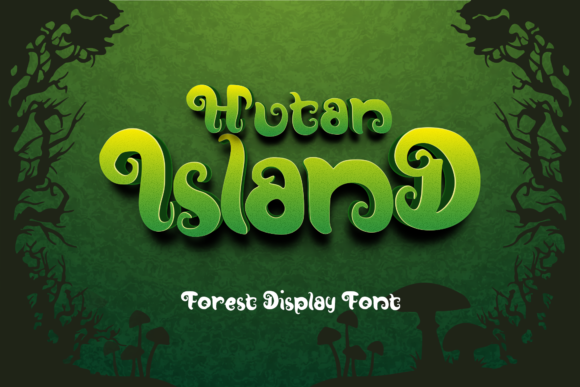
Hutan-Island for Modern Web Design and Branding
Testing Hutan-Island on a recent boutique online store redesign was an eye-opening experience. As a display font, it brought a fresh energy to the hero section, making the brand feel both professional and approachable. Its unique curves and elegant weight made it stand out without overwhelming the design.
Hutan-Island for Boutique Online Store Headers
When I first placed Hutan-Island in the header of the boutique website, the impact was immediate. The font’s stylish look gave the site a modern edge while maintaining readability. It worked perfectly for the main headline, drawing attention without being too bold. For a small business looking to stand out, this kind of visual appeal can make all the difference.
I tested it across different screen sizes and found that its legibility held up well on mobile devices. Pairing Hutan-Island with a clean sans serif font for body copy created a balanced hierarchy, which is crucial for user engagement and scanning behavior.
Hutan-Island for Product Landing Page Titles
On the product landing page, Hutan-Island transformed the title section into a focal point. Its versatility allowed it to fit seamlessly over image banners, adding a touch of sophistication. I noticed that users spent more time on the page when the typography felt intentional and aligned with the brand’s personality.
Using Hutan-Island for short phrases like “Limited Edition” or “Handcrafted Goods” emphasized key selling points. It helped reinforce the brand’s commitment to quality and uniqueness.
Hutan-Island for Coaching Website Headlines
A coaching website needed a font that conveyed trust and inspiration, and Hutan-Island delivered exactly that. Placing it in the hero section over a background image of a sunrise instantly set the tone. The font’s stylish yet professional appearance resonated with the target audience—entrepreneurs and professionals seeking growth.
I also used Hutan-Island for section headings throughout the site, ensuring consistency while keeping the design from feeling monotonous. This approach helped maintain visual interest without sacrificing readability or usability.
Hutan-Island for Course Sales Page CTA Buttons
For a course sales page, Hutan-Island added a sense of urgency and prestige to the call-to-action buttons. While it wasn’t suitable for long paragraphs, it excelled in short, impactful phrases like “Enroll Now” or “Start Today.” The font’s distinctive style encouraged clicks and boosted user interaction.
It’s important to note that Hutan-Island works best for decorative accents rather than extended text blocks. When used strategically, it can elevate the overall design and increase conversion potential.
Hutan-Island for Blog Header Graphics
On a blog redesign, I experimented with using Hutan-Island for header graphics and post titles. The font’s modern typography gave each post a fresh, dynamic feel. It especially stood out against dark backgrounds, creating contrast and enhancing visual appeal.
Its adaptability made it easy to integrate into various layouts, from minimalistic designs to more elaborate ones. Whether paired with a complementary script font or a bold sans serif, Hutan-Island provided flexibility and creativity.
Hutan-Island for Digital Brand Kit Typography
Incorporating Hutan-Island into a digital brand kit was a natural choice. Its stylish look and clean lines made it ideal for logo text, social media graphics, and promotional materials. The font’s ability to convey both elegance and innovation made it a perfect fit for a creative brand identity.
Before finalizing, I checked the available styles, weights, and webfont compatibility to ensure it met all project requirements. Commercial licensing was also considered for client projects and online stores where brand consistency is essential.
Hutan-Island for Campaign Landing Pages
For a campaign landing page, Hutan-Island helped create a cohesive and compelling visual narrative. Its use in headlines and subheadings guided users through the content effectively. The font’s unique character added a memorable touch that differentiated the campaign from competitors.
By testing Hutan-Island in various sections of the page, I confirmed that it performed well in fast-loading visuals and responsive layouts. It maintained clarity even at smaller sizes, which is critical for mobile optimization and accessibility.
Hutan-Island for Portfolio Site Section Headings
On a portfolio site, Hutan-Island became the go-to font for section headings and project titles. Its modern typography gave the site a polished and professional appearance, aligning with the designer’s brand. It also helped establish a consistent visual language across the entire platform.
The font’s versatility allowed it to work well with both light and dark color schemes, making it adaptable for different design directions. It proved to be a valuable asset in building a strong, cohesive online presence.